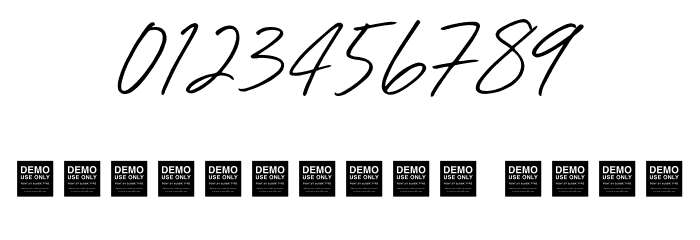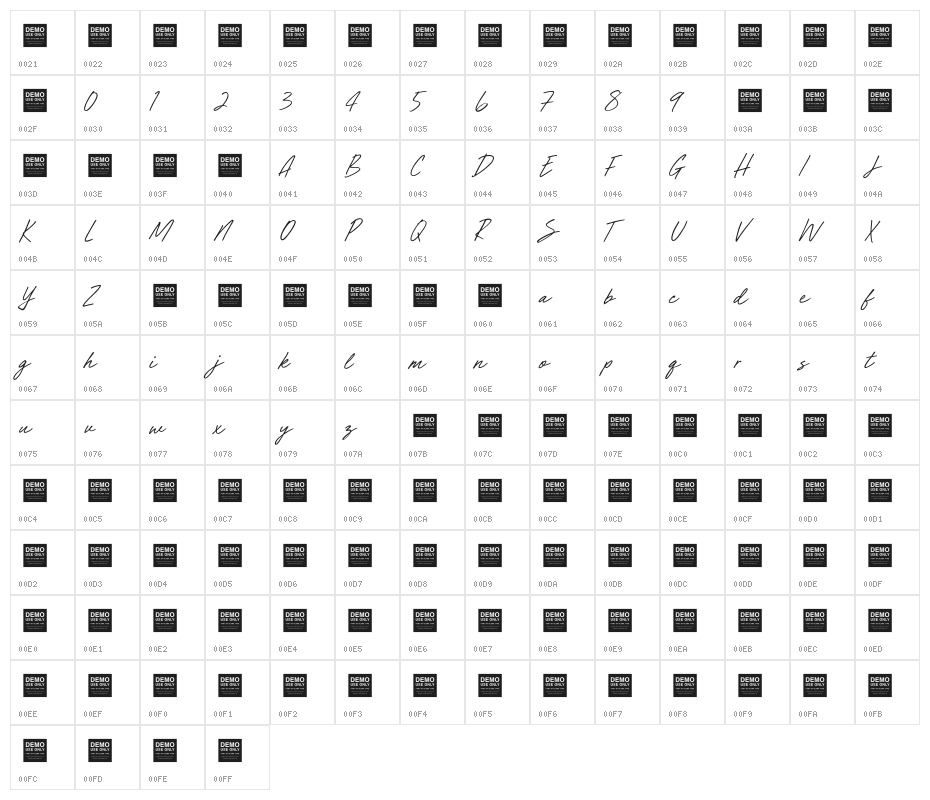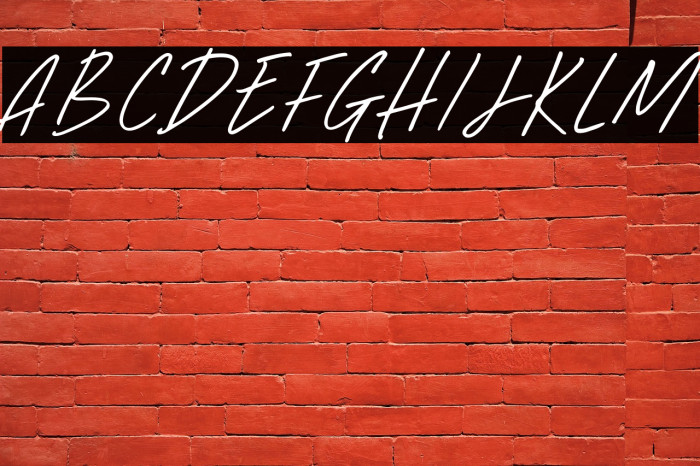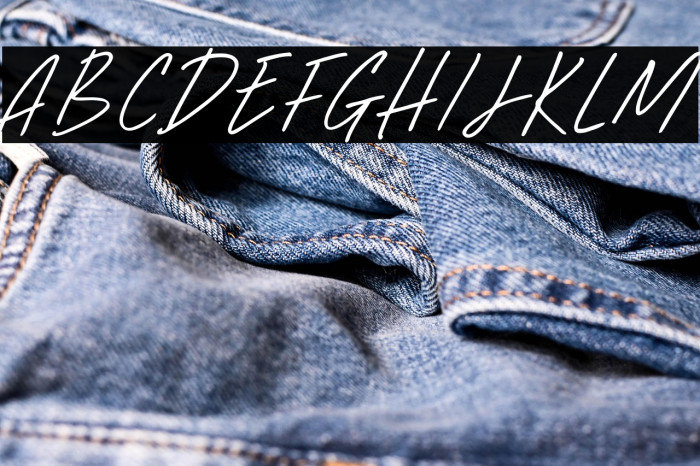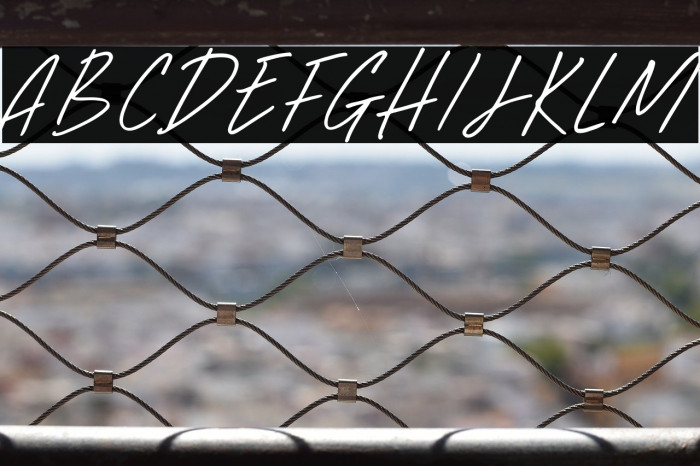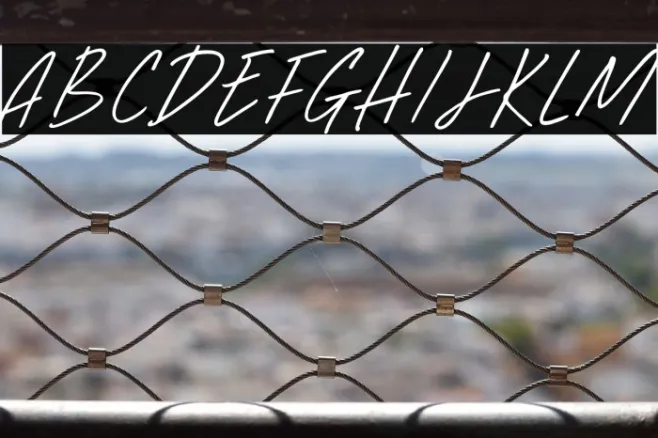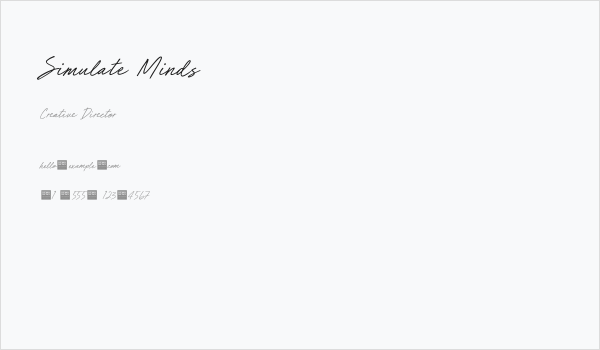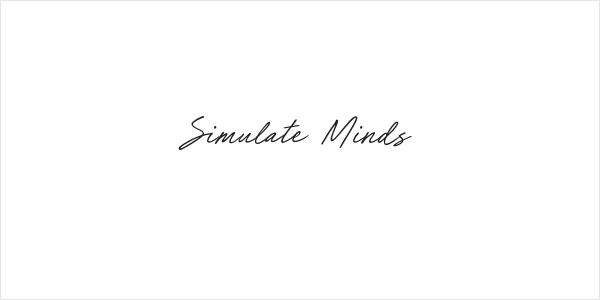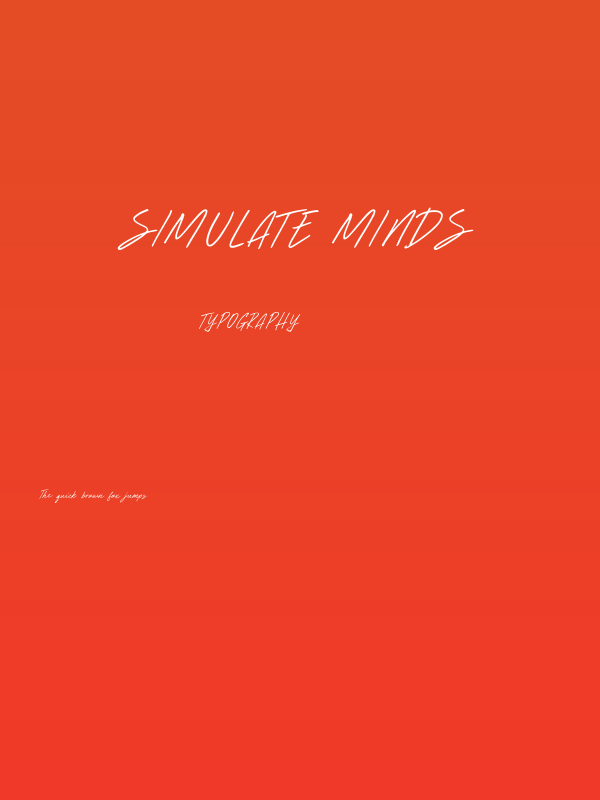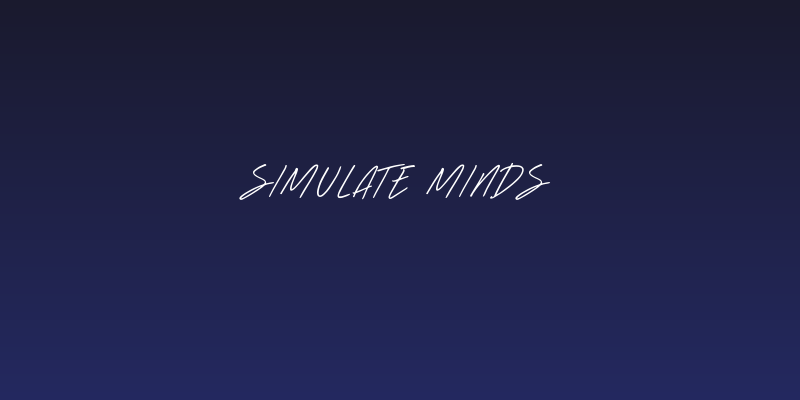
Simulate Minds Font
Simulate Minds Description
This font features a fluid, cursive style that mimics natural handwriting with a modern twist. The characters are connected, creating a seamless flow that is both elegant and casual. The strokes are smooth and consistent, with a slight slant that adds to its handwritten appeal. The uppercase letters are bold and prominent, while the lowercase letters maintain a delicate balance, offering a harmonious blend. Numbers and special characters are crafted with the same attention to detail, ensuring uniformity across all elements. This font is perfect for projects that require a personal touch, such as invitations, greeting cards, or branding materials that aim to convey warmth and approachability.
| Use Case | Logos, Headlines, Personal projects |
| Proposed Projects | Ideal for invitations, greeting cards, personal branding, and any project needing a personal touch. |